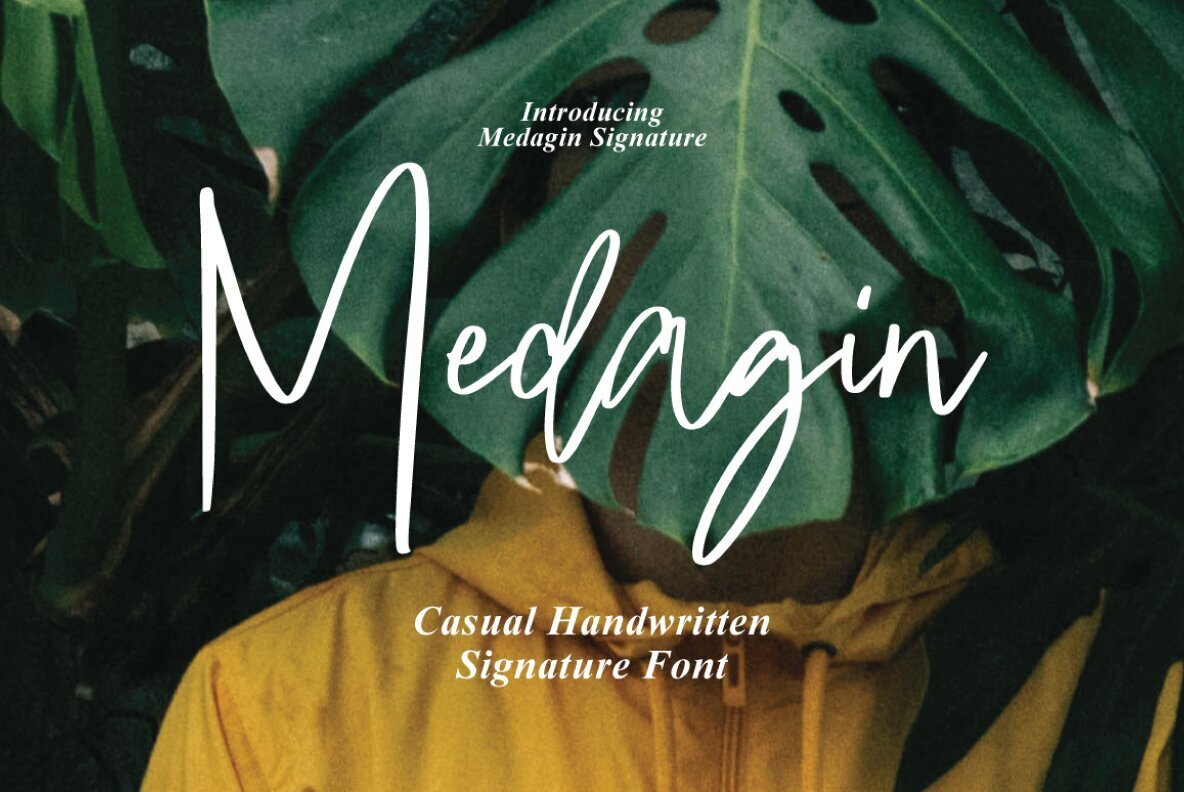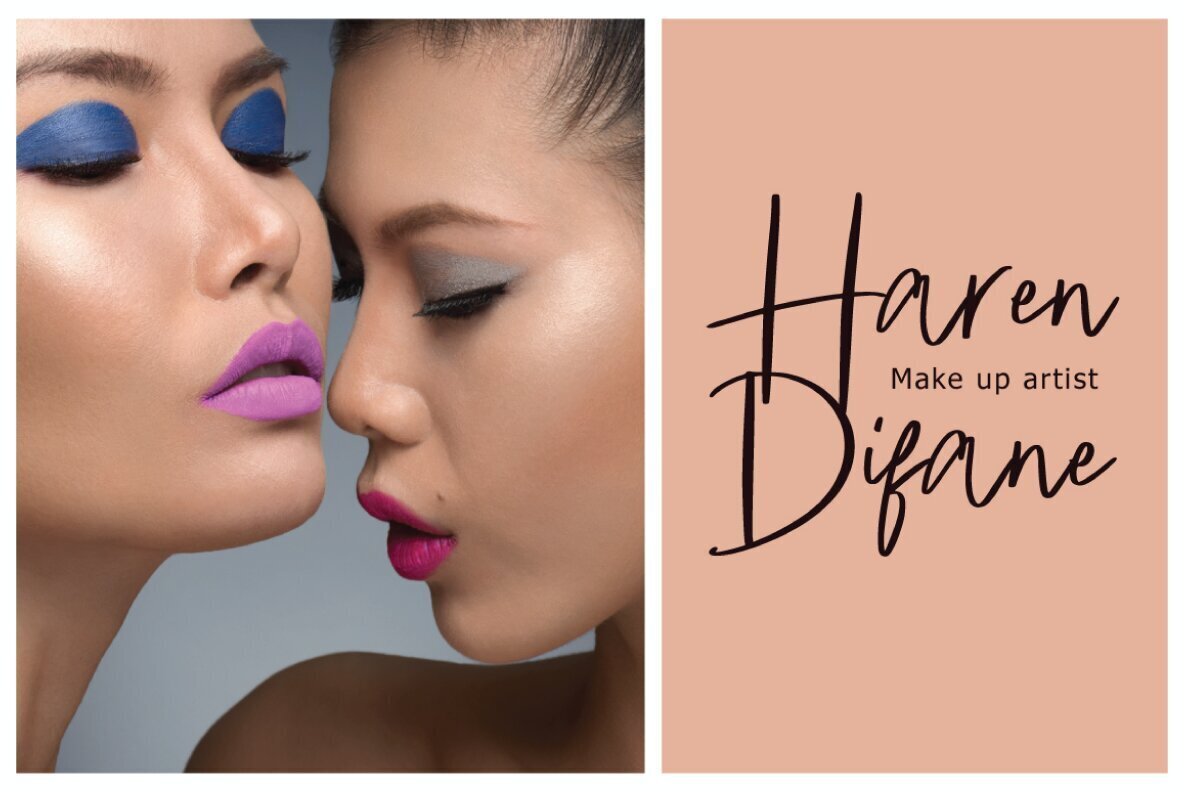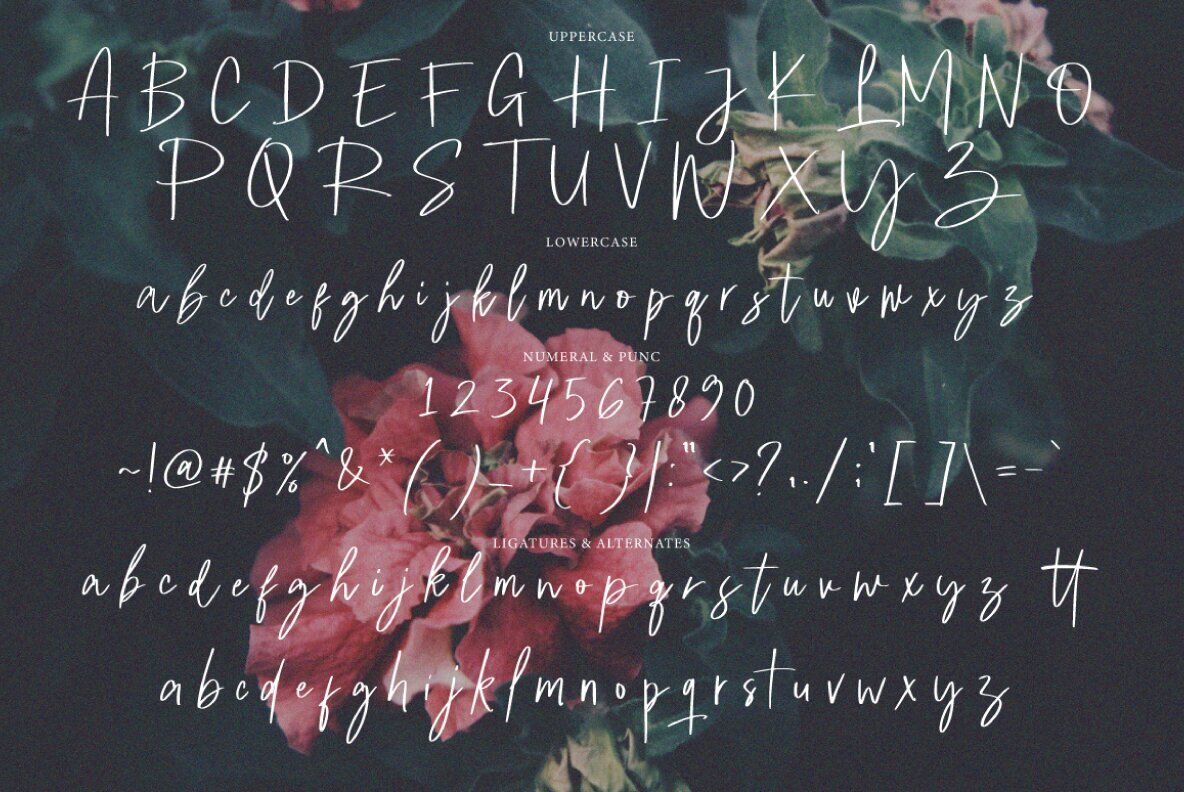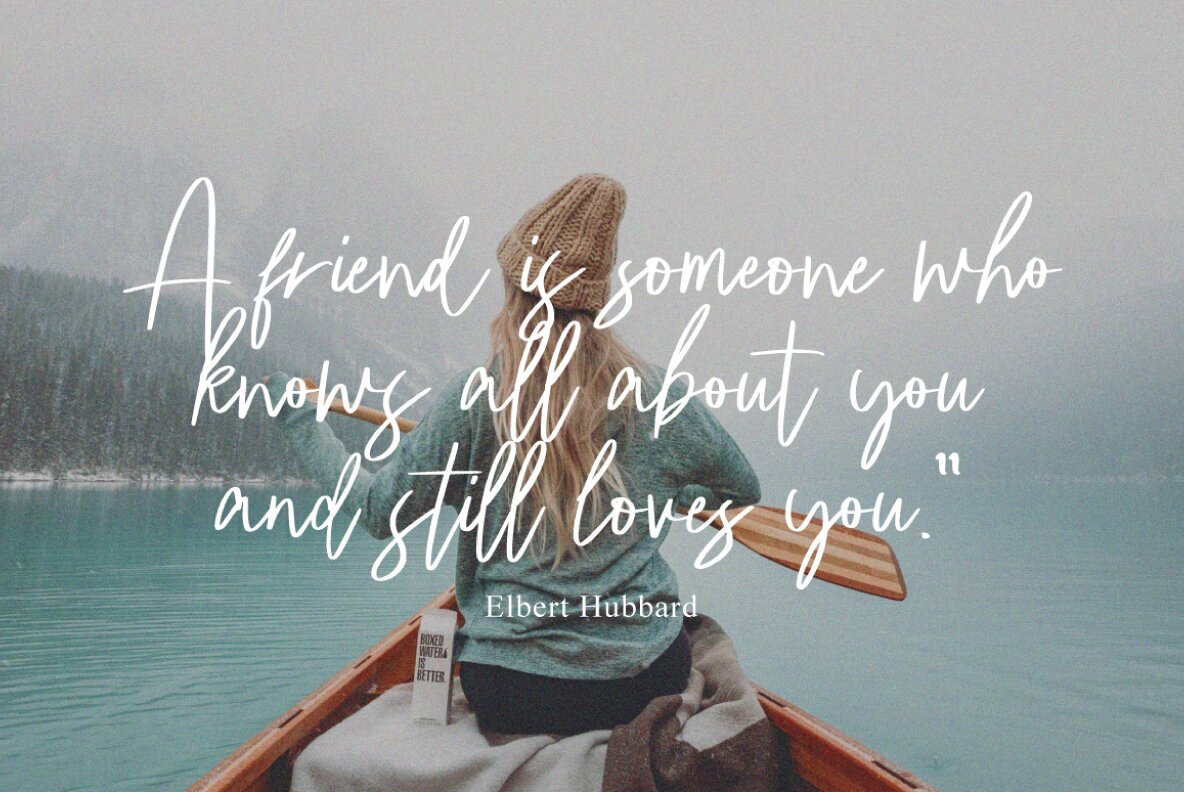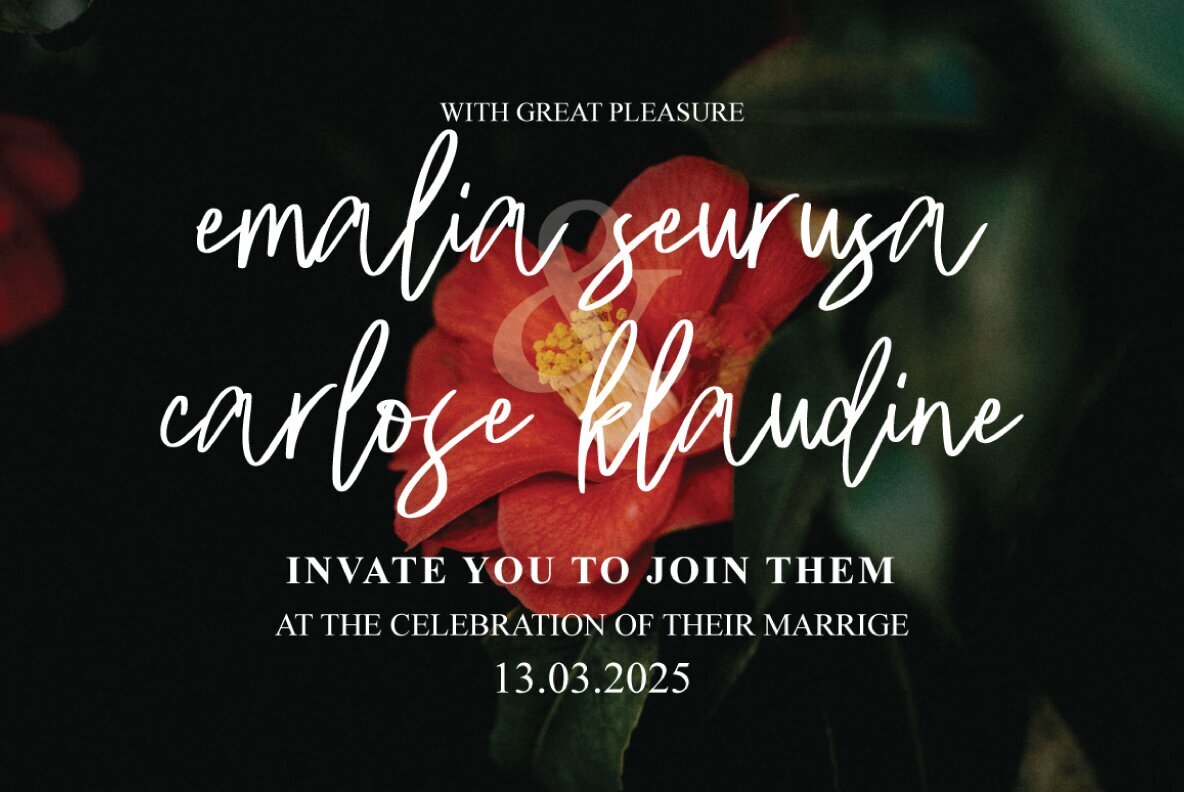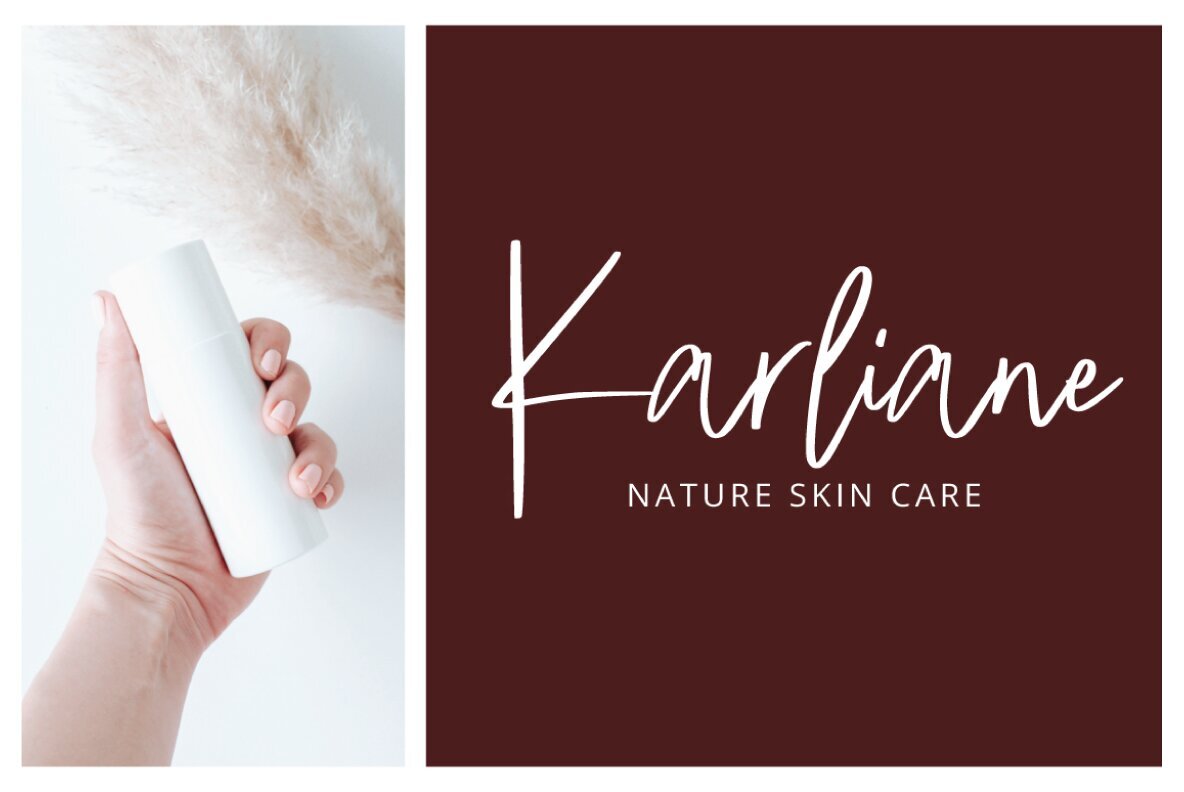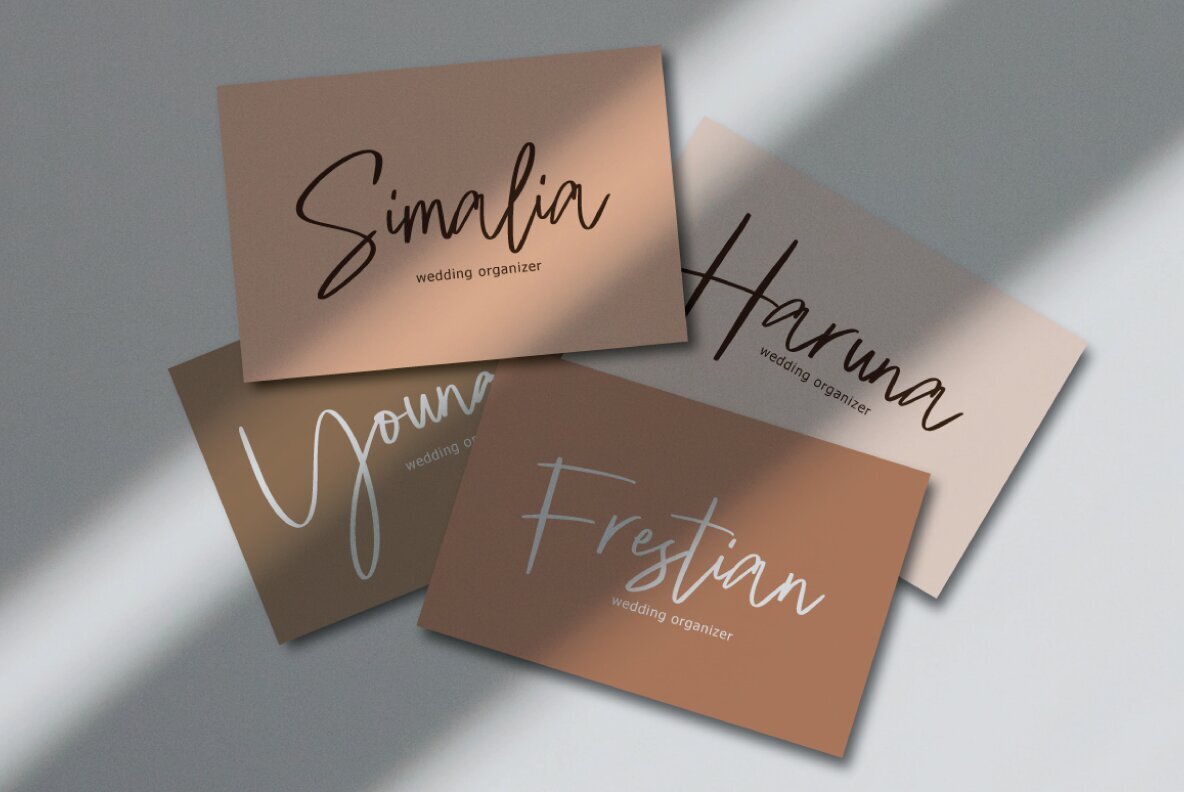
Medagin Font
Medagin Signature Regular
Elevate your design projects with the graceful Medagin Signature font from Executype Studio. This handmade typeface features decorative characters and a charmingly undulating baseline, perfect for adding a touch of elegance to invitations, greeting cards, business branding, quotes, and posters. The font includes over 200 glyphs, offering immense flexibility for creative expression. If you lack a program that supports OpenType features, utilize Font Book on Mac or Character Map on Windows to access all alternate glyphs seamlessly. Medagin Signature effortlessly enhances any project with its sophisticated and versatile design.Medagin Signature Font